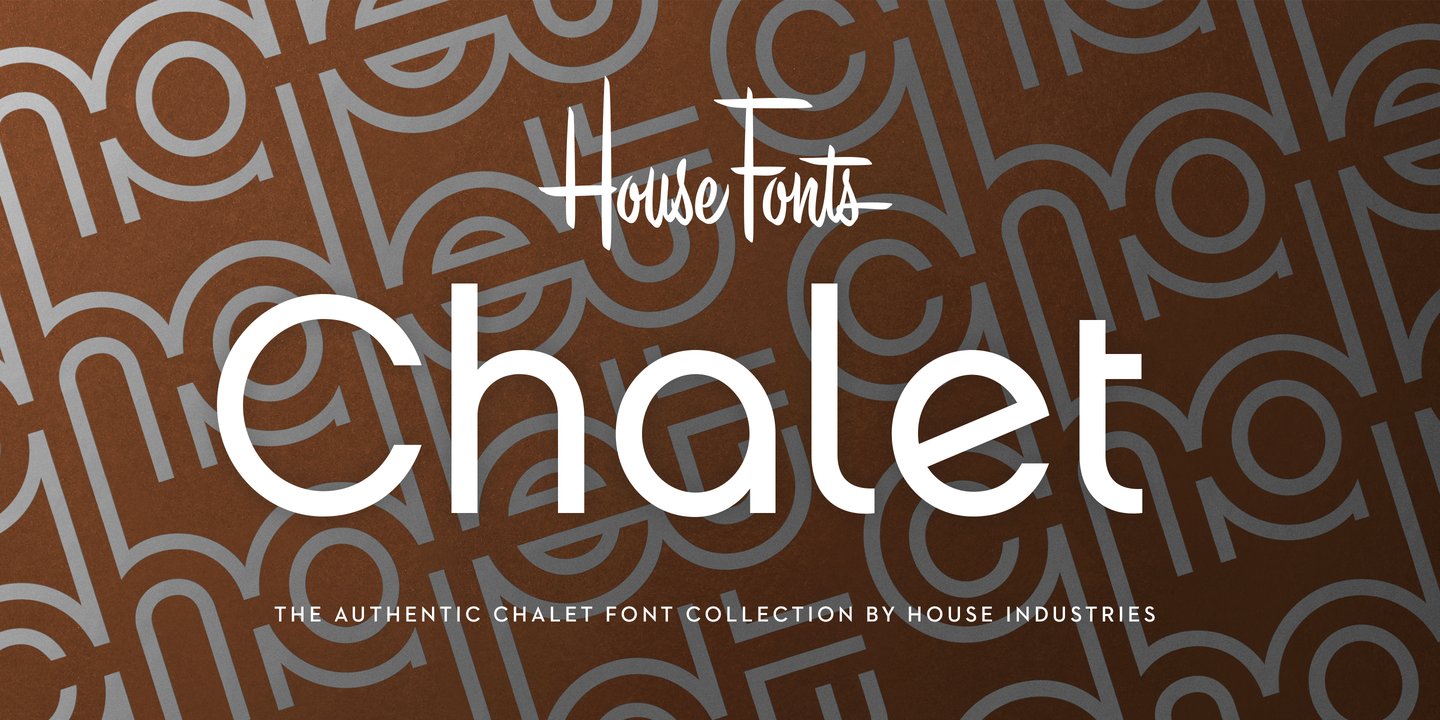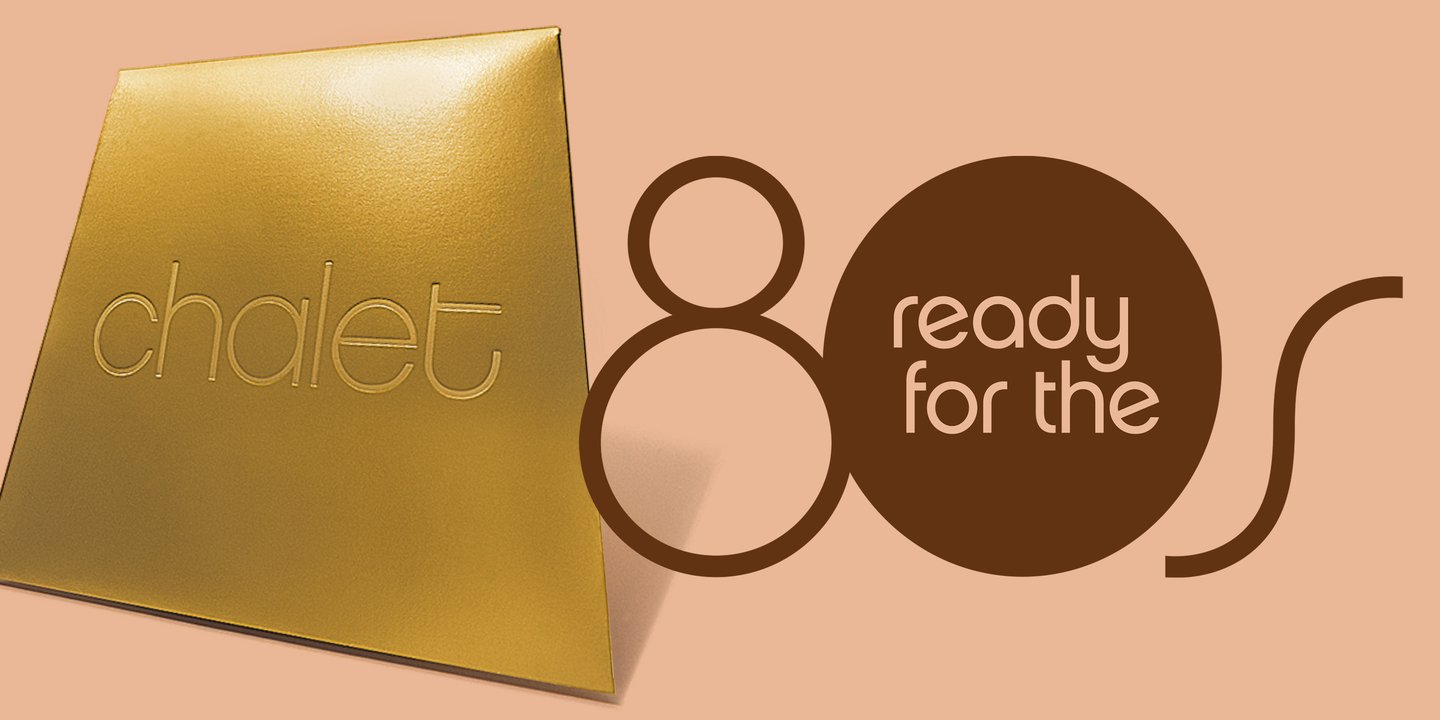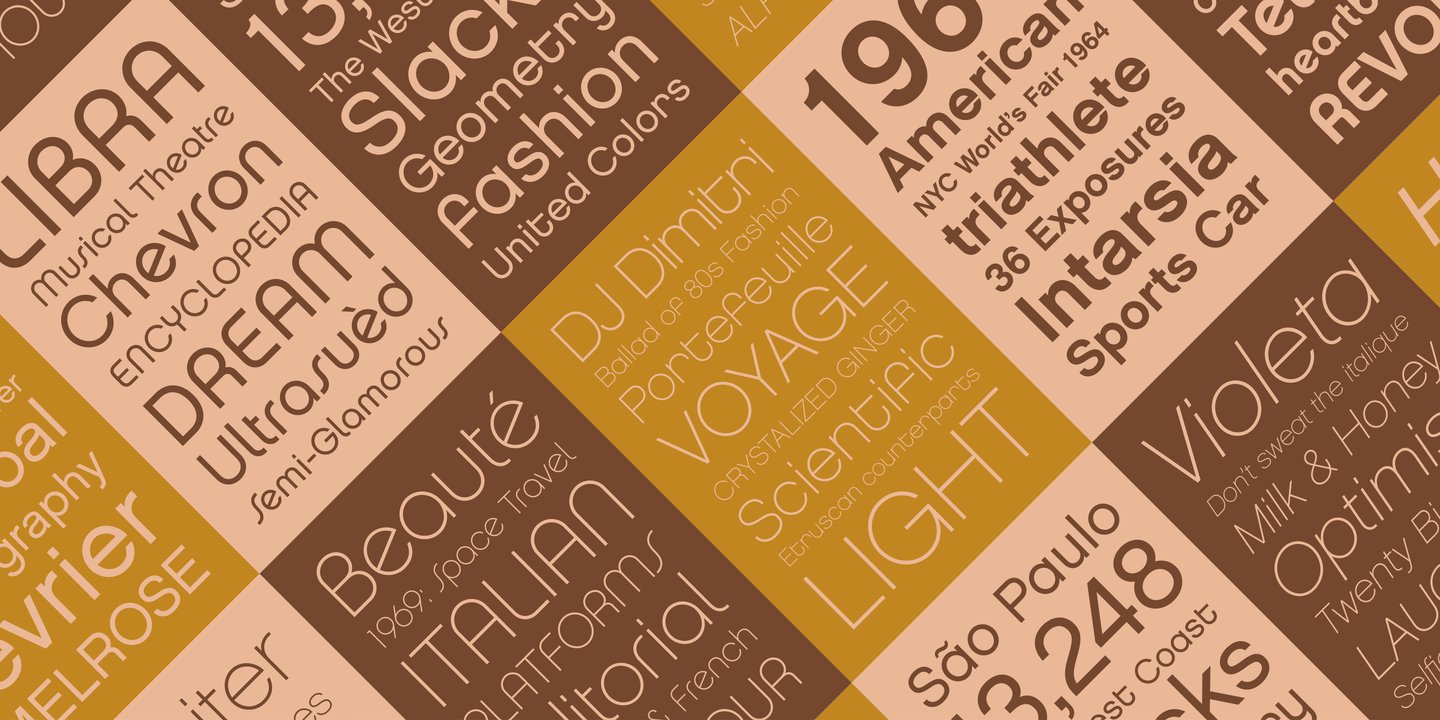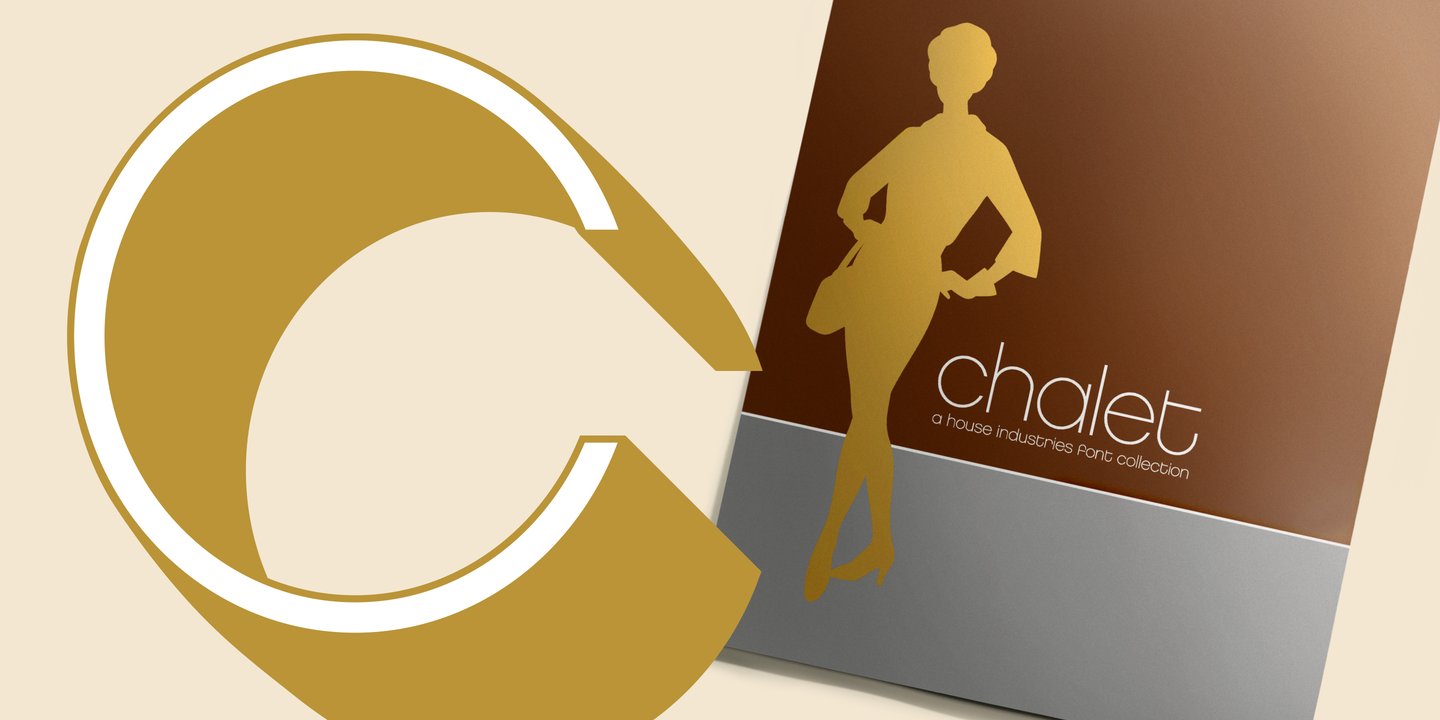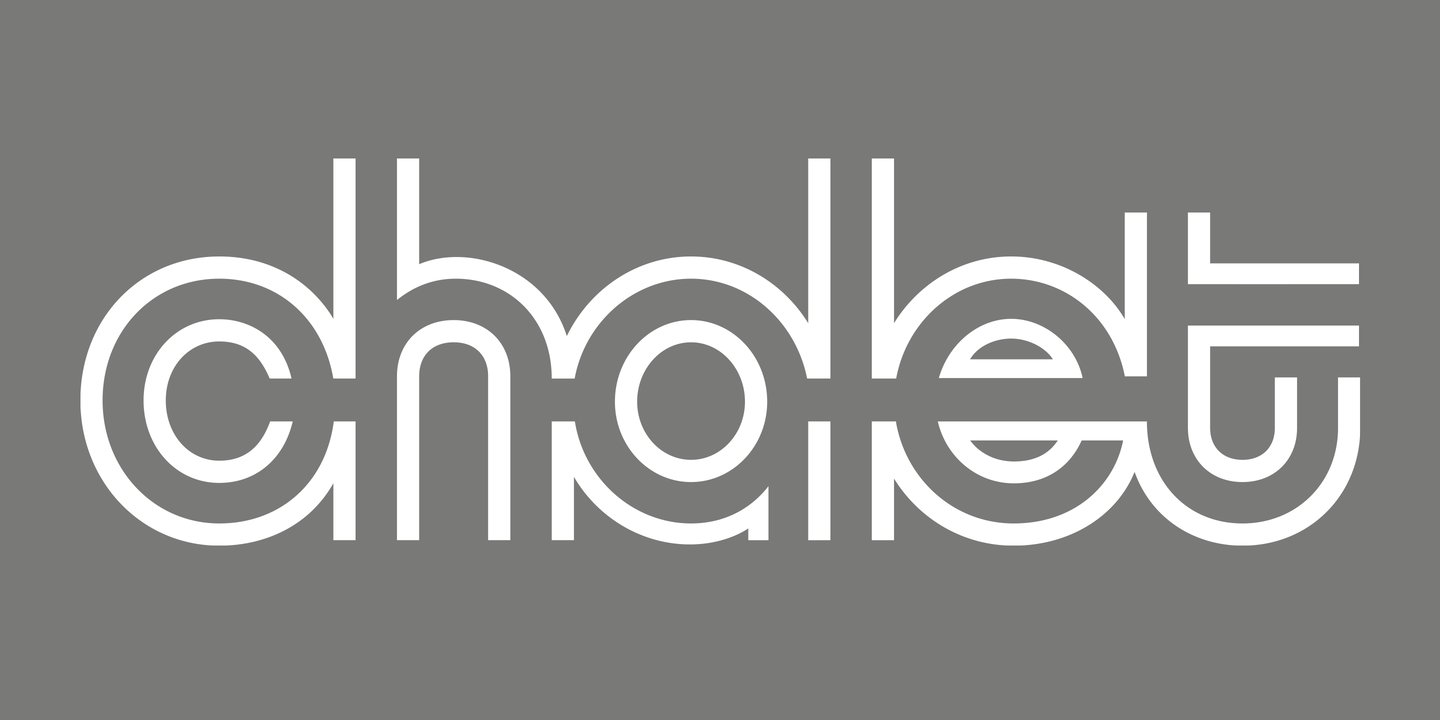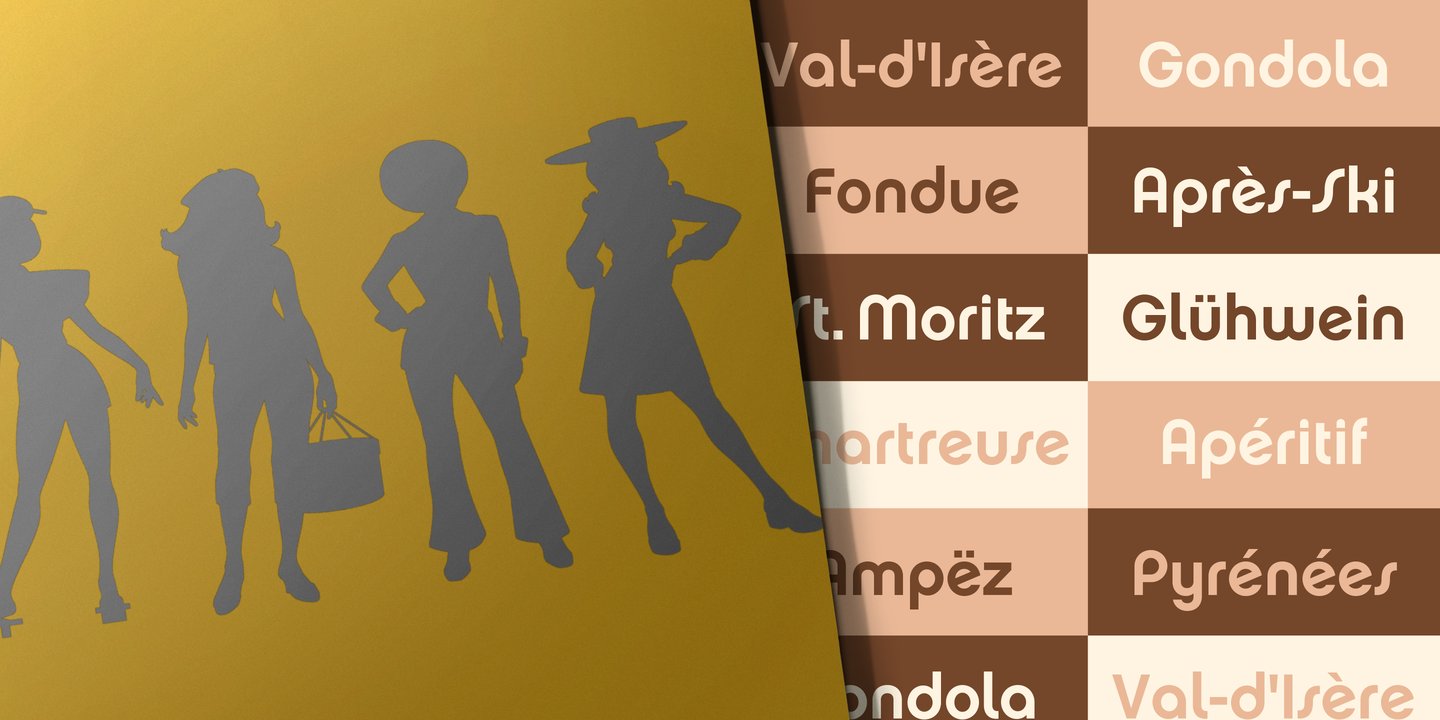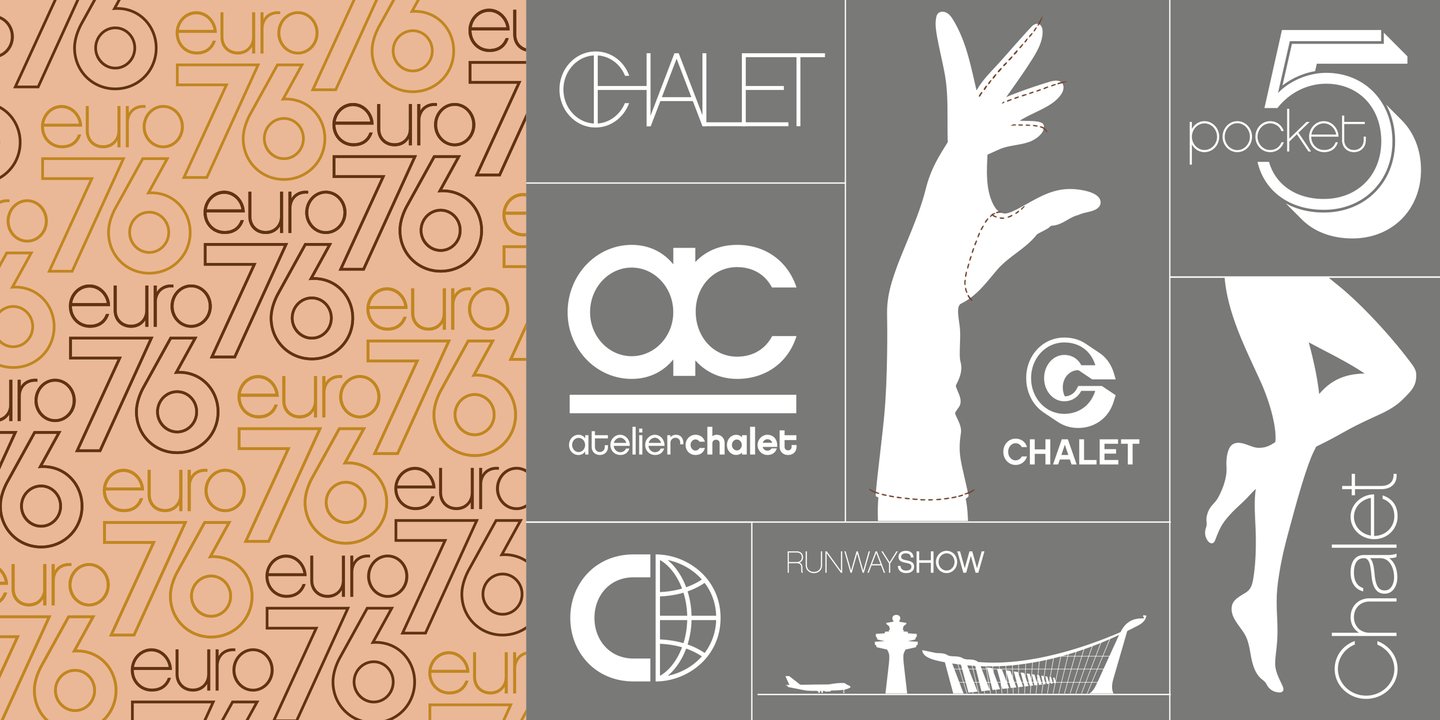
About the Chalet Font
About Chalet Font Family Experience the precision, elegance and history of the Chalet font family. This collection of ten typefaces in three unique styles is the creative genius of acclaimed clothing designer René Albert Chalet. Originally used in his early advertising campaigns, Chalet appropriately echoes the attitude of its creator: function with flair.
Modest and unpretentious yet bold and daring, Chalet’s distinctive air allows for a variety of uses ranging from text to display applications. Add modern panache to any design with the Chalet font family. CHALET CREDITS: Typeface Design: Ken Barber, René Albert ChaletTypeface Production: Rich RoatTypeface Direction: Ken Barber, Andy Cruz Like all good subversives, House Industries hides in plain sight while amplifying the look, feel and style of the world’s most interesting brands, products and people. Based in Delaware, visually influencing the world. Designers: Ken Barber, René Albert ChaletPublisher: House IndustriesFoundry: House IndustriesDesign Owner: House IndustriesMyFonts debut: Oct 4, 2021 Chalet